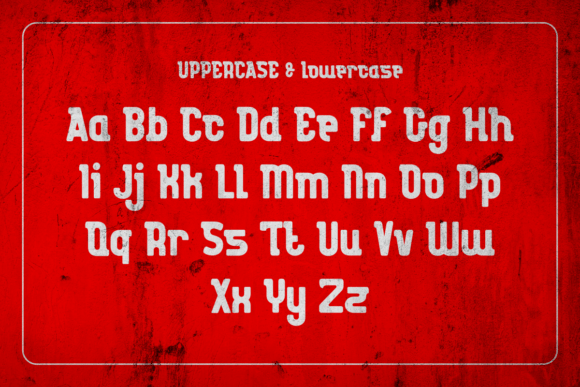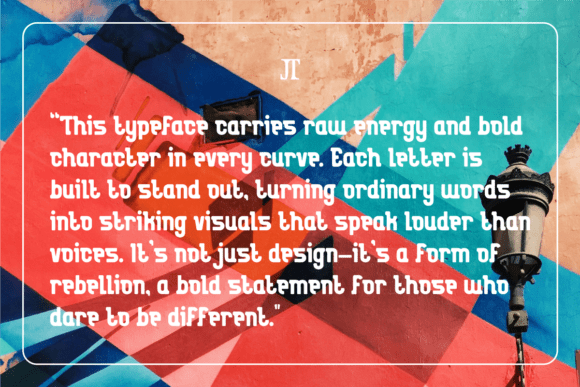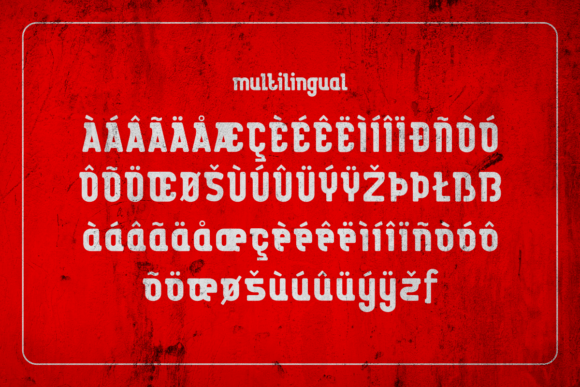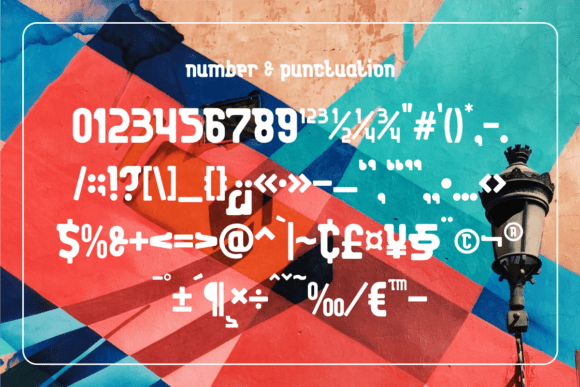
The Ultimate Game-Changer for Your Designs: Introducing Jamblox Font
You know that moment when you’re brainstorming ideas for a new project, and suddenly, a bold, eye-catching font pops into your head? That’s exactly what happened to the designers behind the Jamblox Font – a game-changing display font that’s designed to grab attention instantly. With its chunky, blocky style and sharp edges, Jamblox Font is perfect for creating headlines, posters, logos, and any design that needs to shout confidence and creativity.
What makes Jamblox Font truly special is its unique balance between fun and power. It’s not just another thick font – it’s a personality in itself, with a bold street vibe and a clean, geometric base that keeps your designs looking modern and professional. Whether you’re a seasoned designer or just starting out, Jamblox Font is an invaluable asset to your toolkit, offering endless possibilities for creative expression and visual impact.
Jamblox Font Key Features
- Font Family: Jamblox is a sans-serif font family with a unique, modern design.
- Character Set: The font family includes over 400 characters, including uppercase and lowercase letters, numbers, punctuation marks, and special characters.
- Unique Characteristics: Jamblox Font features a distinctive, geometric design with clean lines, rounded corners, and a modern feel, making it perfect for digital and print media.
Jamblox Font Review
Overall, I was excited to dive into the Jamblox Font and see what it has to offer. Here’s my honest take on its strengths and weaknesses.
- Unique and playful style: Jamblox Font has a distinct, whimsical feel that’s perfect for creative projects, like children’s books or advertising campaigns.
- High-quality vectors: The font is available in high-resolution vector format, making it easy to scale up or down without losing any detail.
- Supports various languages: Jamblox Font covers a wide range of languages, including Latin, Cyrillic, and Greek alphabets.
- Not suitable for formal documents: Due to its playful style, Jamblox Font may not be the best choice for formal reports, academic papers, or other professional documents.
- Limited font sizes: While the font is scalable, it may not look as good at extremely small or large sizes, which could be a limitation for certain design projects.
- May not be suitable for body text: Jamblox Font is better suited for headlines, titles, or other display text, as it can be difficult to read in large blocks of body text.
Overall, I think Jamblox Font is a great addition to any designer’s toolkit, but it’s essential to use it in the right context. With its unique style and high-quality vectors, it’s perfect for creative projects that need a touch of whimsy. Just be mindful of its limitations, and you’ll be able to get the most out of this fantastic font.
Tips for Getting the Most Out of Jamblox Font
To get the most out of Jamblox Font, use it in combination with other creative elements, such as bold colors and graphics.
Experiment with different font sizes and styles to create visual interest and emphasis.
Jamblox Font is ideal for creative and artistic projects, such as:
- Marketing materials, such as brochures and posters.
- Illustrations and graphic novels.
Alternatives to Jamblox Font
Montserrat is a popular sans-serif font designed by Julieta Ulanovsky. It is ideal for digital products, logos, and marketing materials where a clean and modern look is required. Montserrat has a similar geometric feel to Jamblox Font but with a more minimalist approach. It is available for both personal and commercial use.
Avenir is a geometric sans-serif font designed by Adrian Frutiger. It is suitable for high-end branding, luxury products, and editorial design where a sophisticated and elegant look is desired. Avenir has a more refined and detailed feel compared to Jamblox Font, making it a better choice for projects that require a touch of luxury.